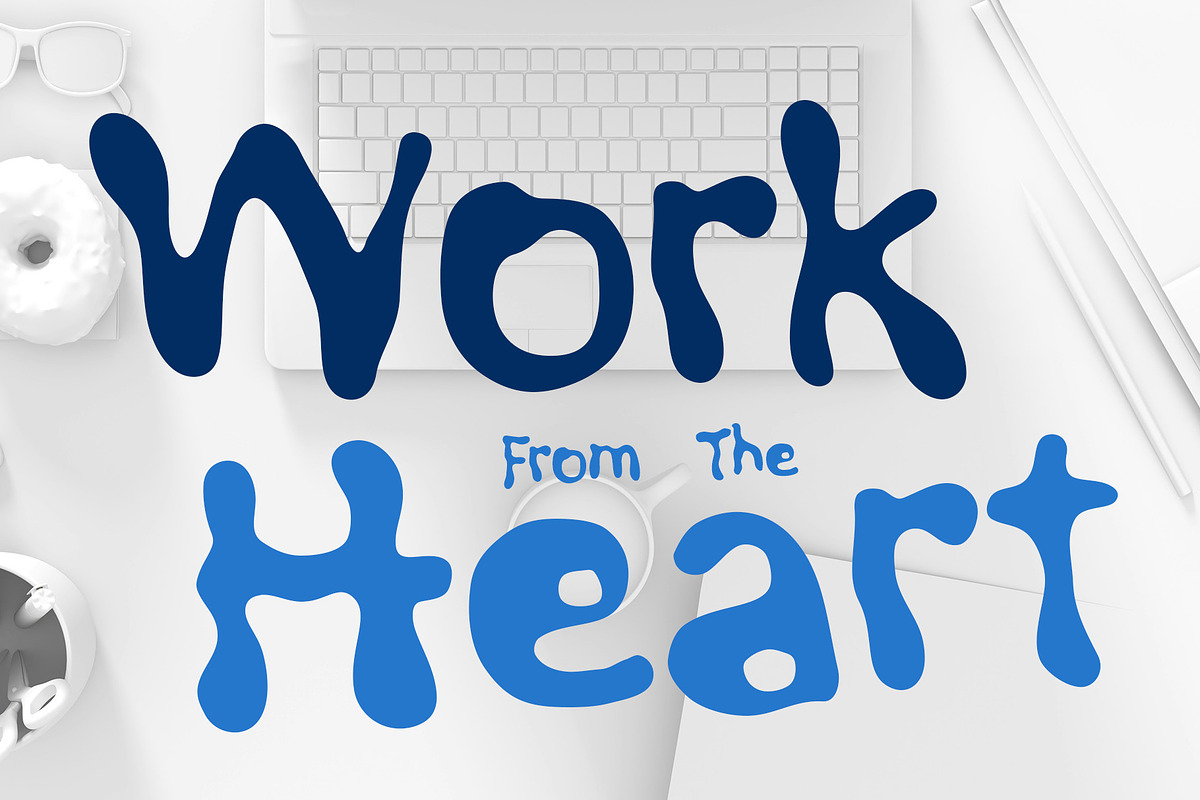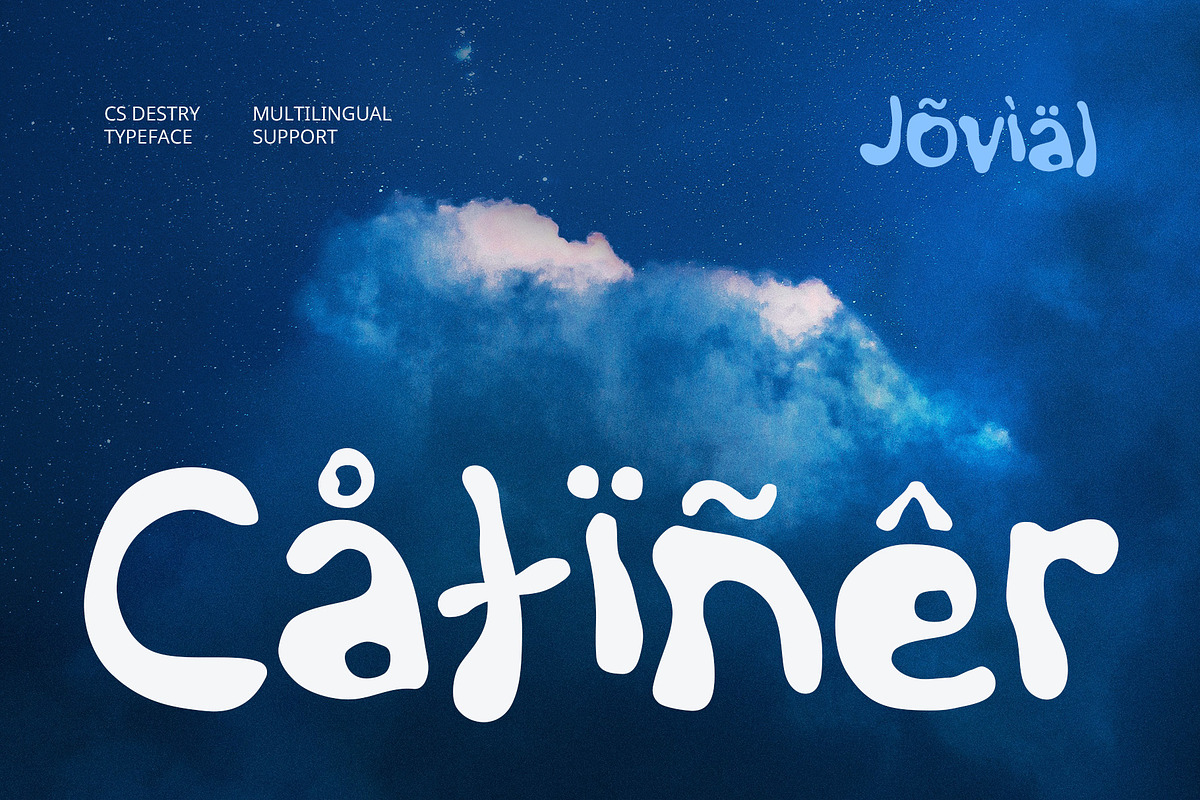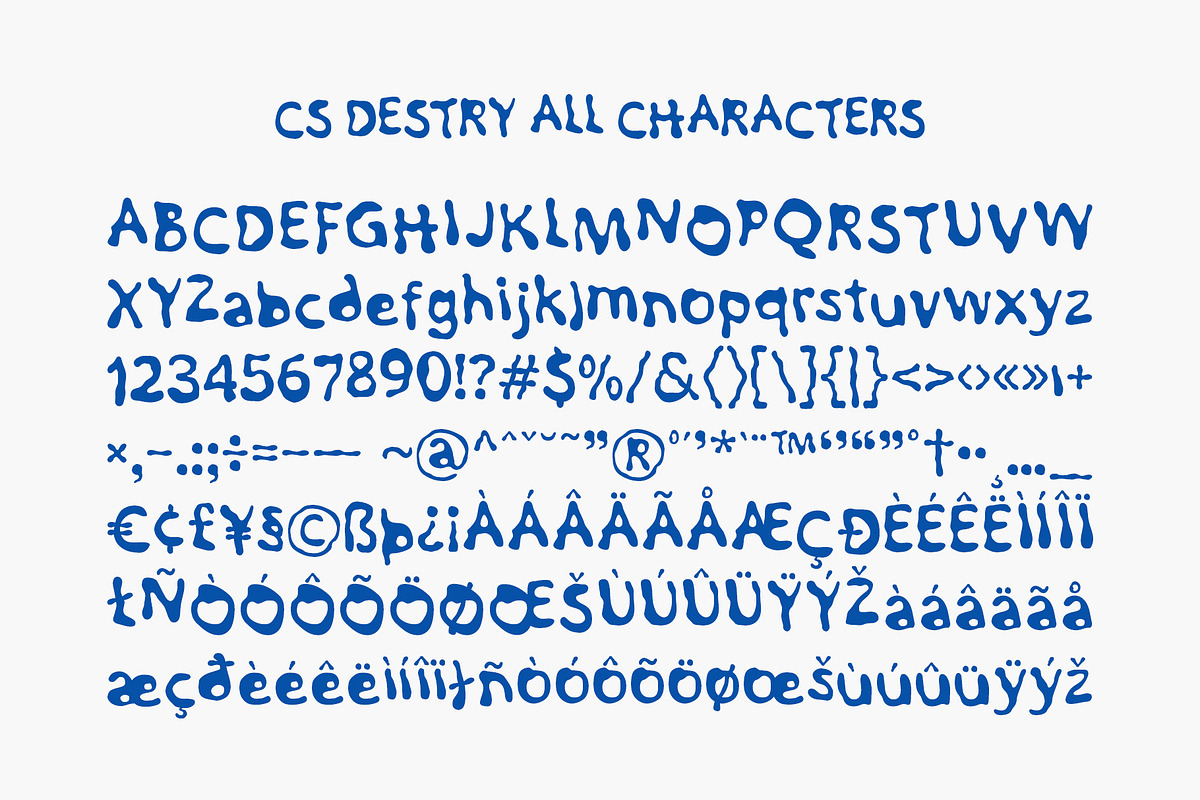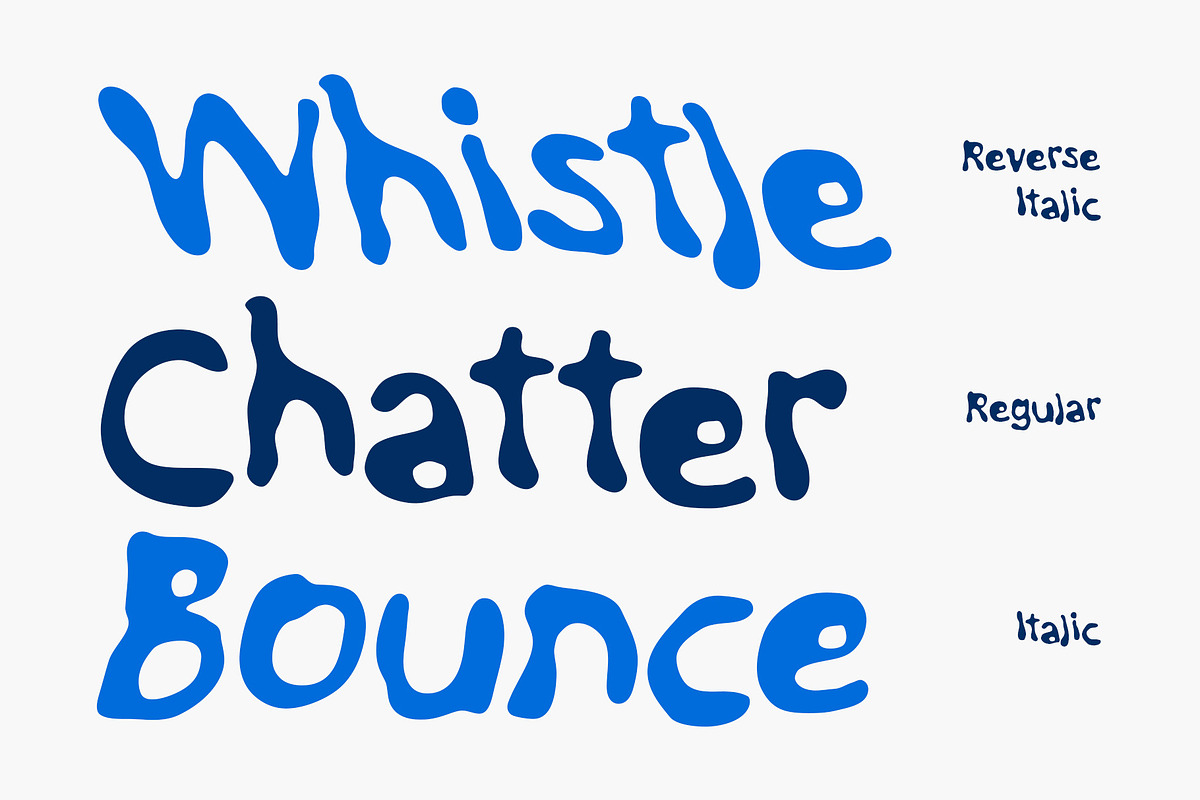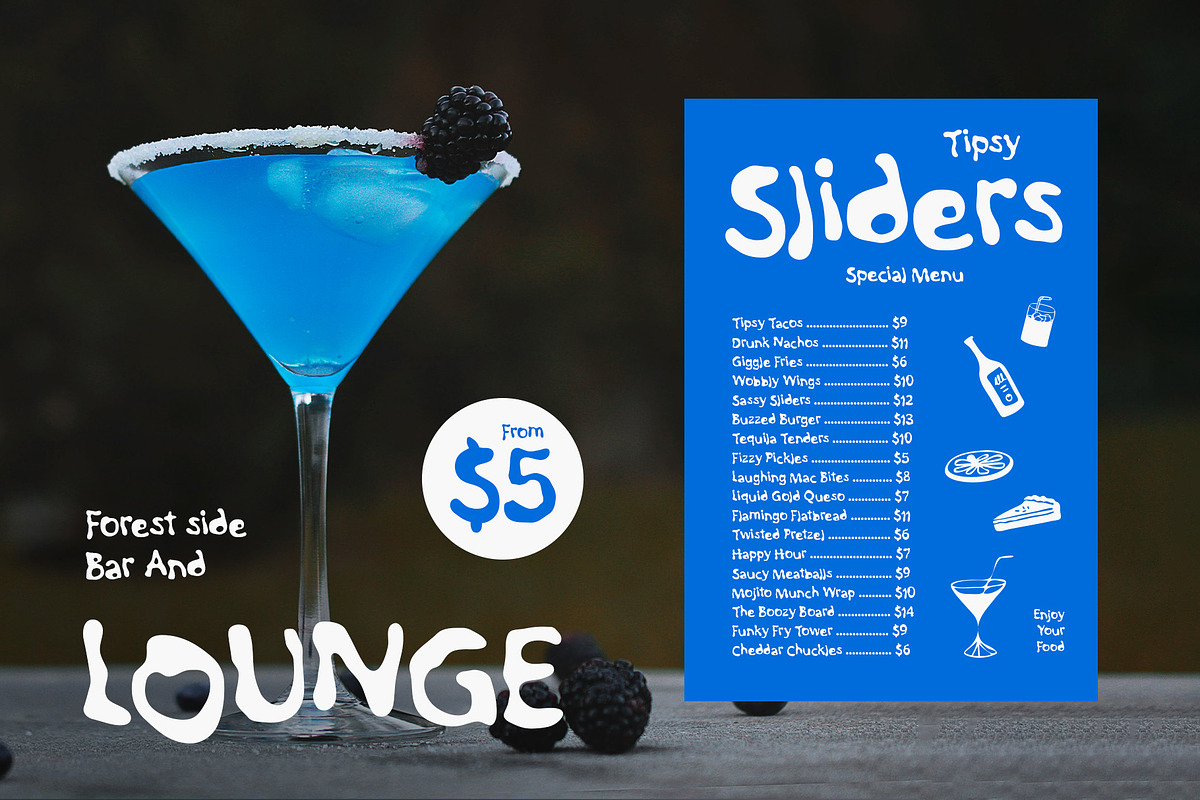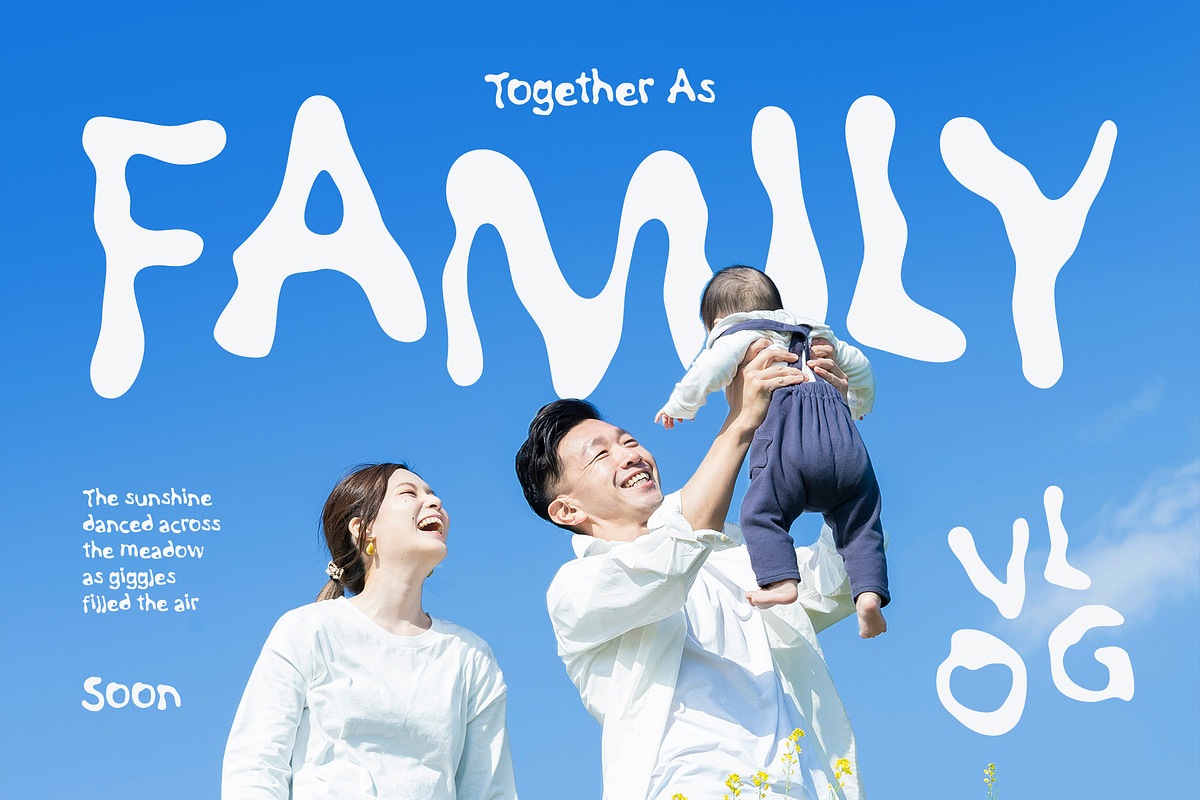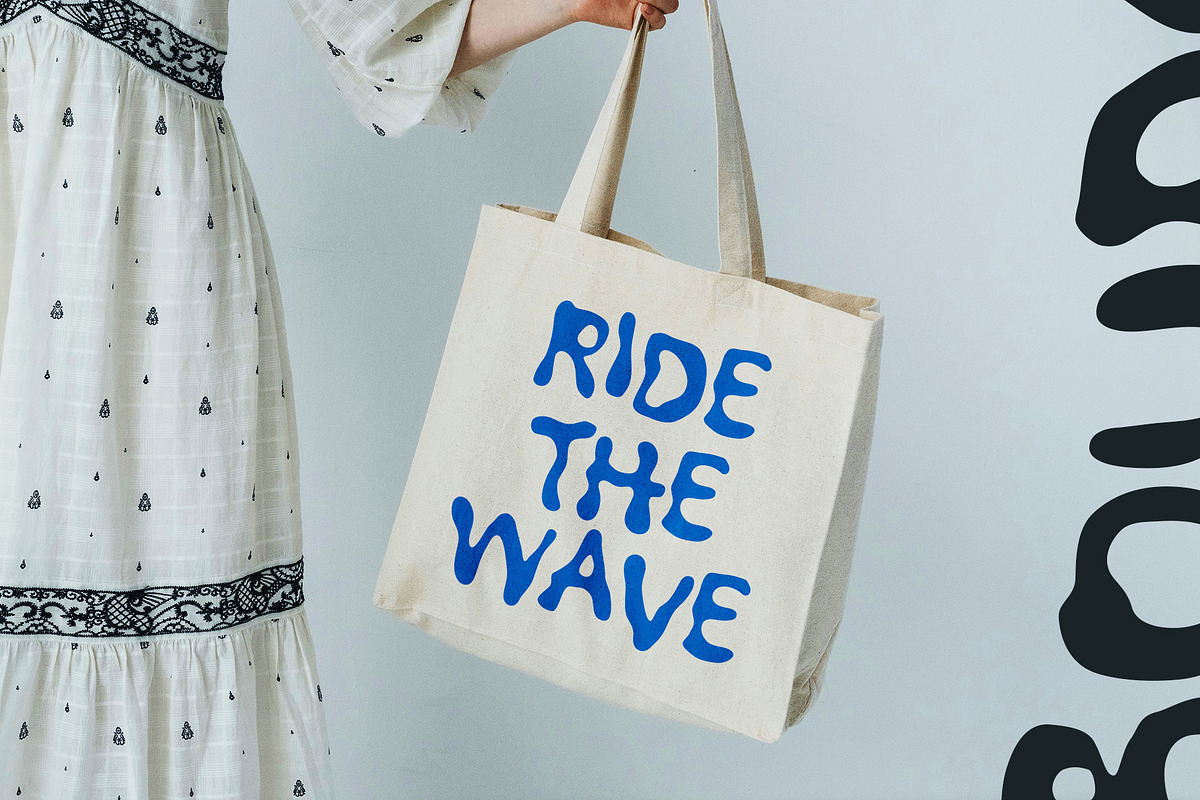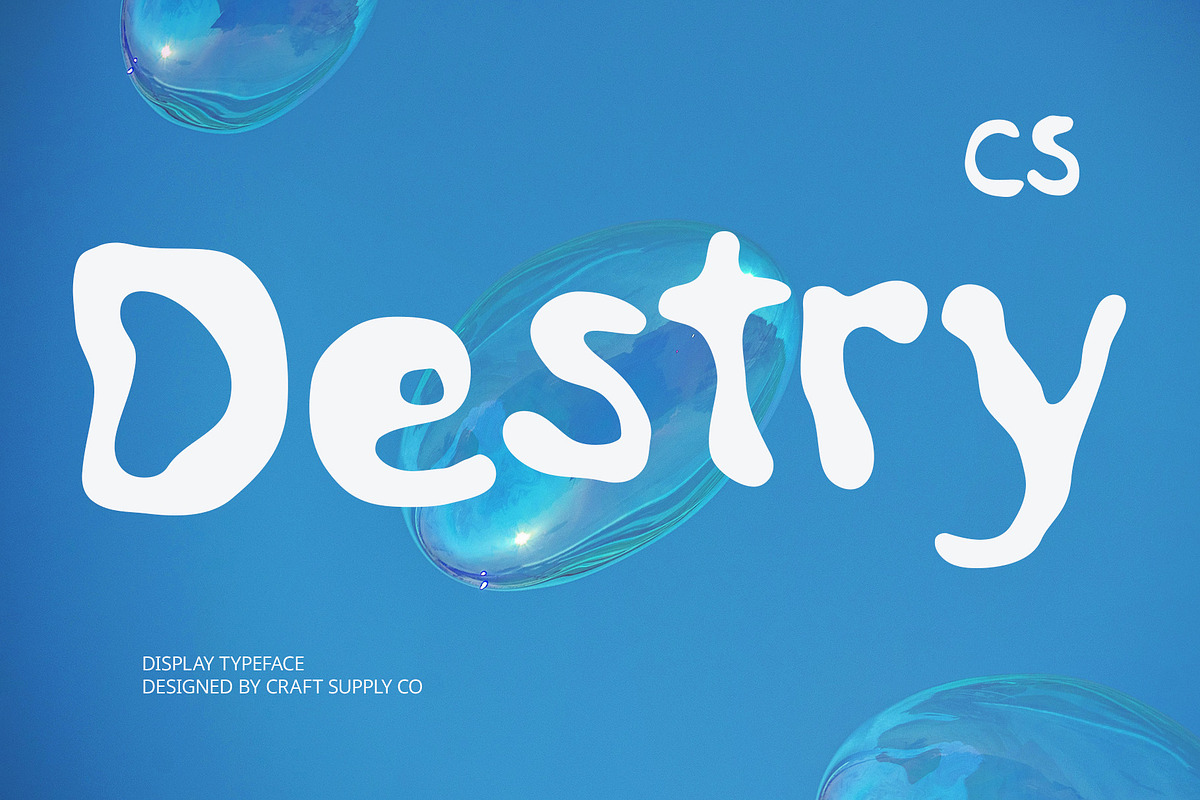
CS Destry – Etchy Font
CS Destry – Etchy Font: A Playful and Personal Touch
Irregular, Handcrafted Strokes for Character and Charm CS Destry is a display font that embraces a unique, hand-scratched, and etchy style, adding warmth and personality to your designs. Its irregular strokes and rough edges create a handcrafted, authentic look that feels both personal and approachable. The texture of each character brings a tactile, warm feel.
Fun, Playful Vibe for Creative and Casual Projects This font is full of character, with a playful and energetic vibe that’s perfect for creative ventures. Whether you’re designing children’s books, playful branding, or casual event posters, CS Destry’s funky shapes and charming design add a sense of fun and whimsy.
Perfect for Illustrations, Branding, and Creative Designs CS Destry excels in projects that aim to stand out with personality. Its unique etchy style makes it ideal for children’s designs, quirky branding, hand-drawn illustrations, and casual creative projects. Whether you’re working on product packaging, album covers, or advertising for a boutique, this font brings visual warmth and energy to any project.
A Perfect Balance of Funk and Personality More than just a font, CS Destry is an expression of warmth and individuality. The personal touch of the hand-drawn effect gives it a memorable, distinctive quality, setting your work apart with a unique charm that can only be achieved with handcrafted design.
- CS Destry Regular
- CS Destry Italic
- CS Destry Reverse Italic